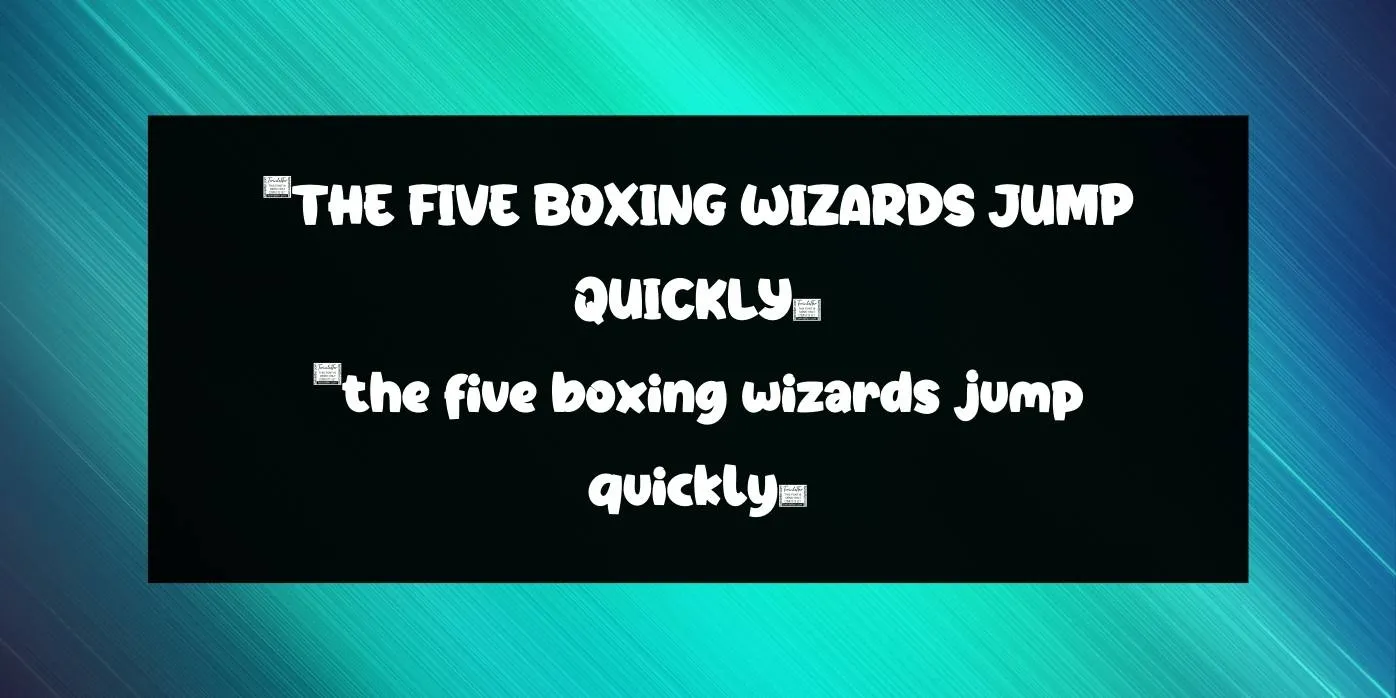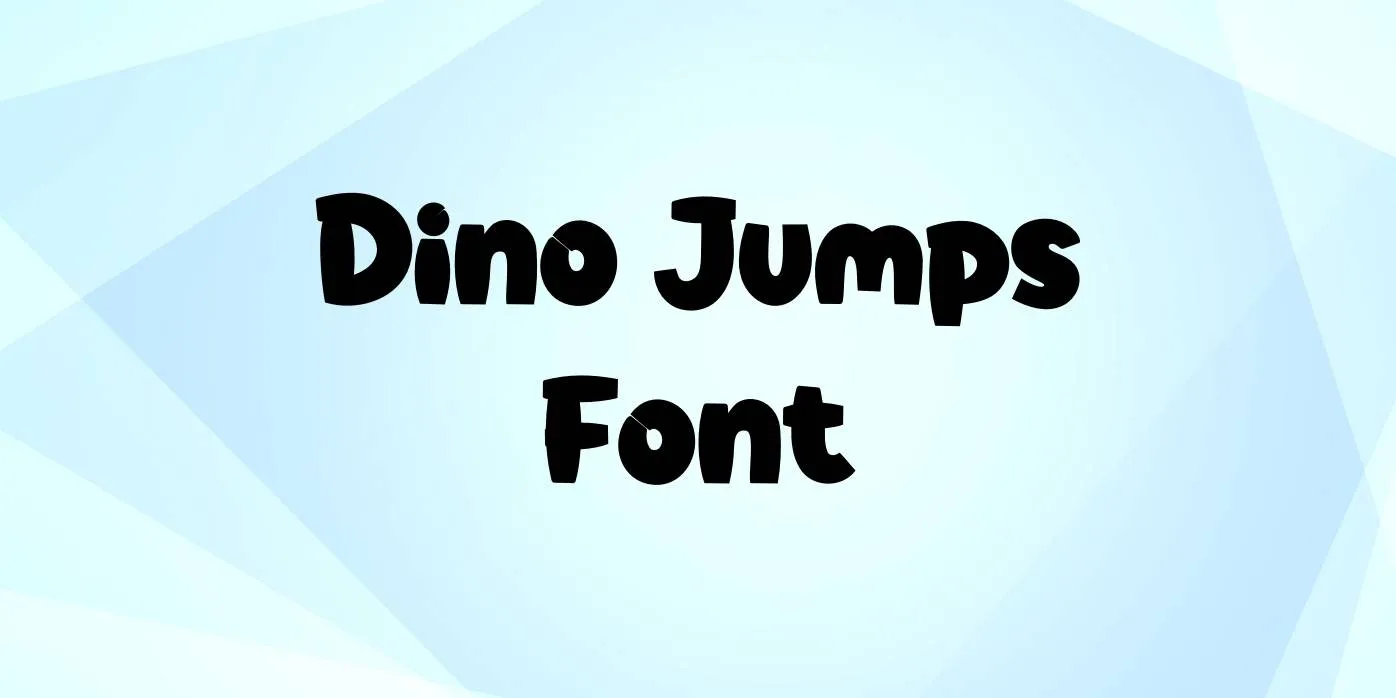
Dino Jump Font
Dino Jump Font is a popular fancy typeface that has very unique features and functions. The font was created by twinletter. This font is known for its unique, attractive strokes and its fancy characters. The typeface has become a popular choice for those who looking for a stylish typeface and it was designed by many designers over the years.
It comes in a single weight that contains uppercase, lowercase, punctuations, ligatures, swashes, and special characters. It has a bold and attractive characters that can make a valuable pair with samantha script font, that available on our website. Usage This tremendous typeface is used for a variety of interesting designs such as website designs, banner ads, presentations, labels, posters, and many more. You can also use this stylish typeface for many other purposes like social media posts.
This outstanding typeface is also good for making t-shirt designs, product packaging, book covers, comic cover, as well as other product branding. If you want to pair the typeface and gain much more effect on your designs then combine it with aquire font. There is an online generator tool, in which you can generate the typeface style immediately without any downloading. There is an online platform where you can easily generate any type of font.
The Font has been around since 2006. It was created by twinletter and is currently available through our website. What are some common uses for Dino Jump Font? This tremendous typeface is used for a variety of interesting designs such as website designs, banner ads, presentations, labels, posters, and many more.
. Is Dino Jump typeface legible? Yes, Dino Jump Text is legible. The font was designed to be legible even when used in small sizes.